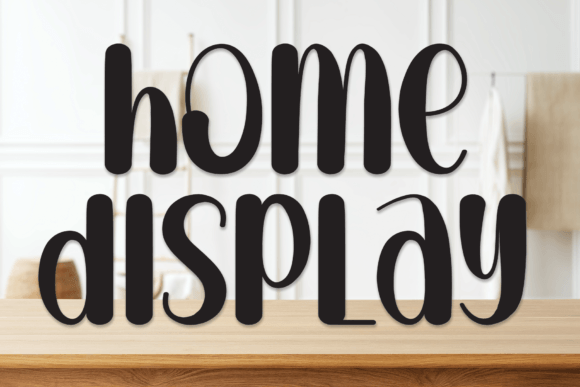
Adding a Personal Touch with the Home Display Font
Have you ever sat down to brainstorm ideas for a special project, only to find that the perfect font is missing? For many designers, this is a familiar experience. But what if you could bring a sense of warmth and personality to your designs with just the right font? Enter the Home Display Font, a cool and friendly handwritten display font that’s sure to make a lasting impression.
Whether you’re crafting wedding invitations, creating custom cards, or designing any other project that needs a fun touch, the Home Display Font is the perfect solution. Its creative and versatile design makes it an invaluable asset for any designer looking to add a personal touch to their work.
Key Features of Home Display Font
- Unique Characteristics: Home Display Font features a distinctive, modern design with a focus on readability and legibility, making it ideal for digital displays and signage.
- Character Set: The font includes a comprehensive character set, including Latin, Cyrillic, and Greek alphabets, as well as punctuation and symbols.
- Kerning and Ligatures: Home Display Font includes advanced kerning and ligature features, ensuring smooth and natural-looking text rendering.
- Scalability: The font is designed to be highly scalable, making it suitable for use in a wide range of applications, from small mobile devices to large digital billboards.
Review of Home Display Font
Overall, I think Home Display Font is a great addition to any UI designer’s toolkit. ✨ Its modern and sleek design makes it perfect for creating visually appealing interfaces. I particularly love how it handles headings and titles – it’s clean, crisp, and always grabs the user’s attention.
One of the standout features of Home Display Font is its excellent readability across various screen sizes. ✨ It’s clear and legible even at small font sizes, making it ideal for use in mobile applications and websites. Additionally, the font’s versatility allows it to be used in a wide range of design contexts, from logos to body text.
While Home Display Font is a great font, it’s not without its limitations. ⚠️ One of the main issues I’ve encountered is its lack of support for certain languages. If you’re working on a project that requires a font with comprehensive language support, you may need to look elsewhere.
Despite its limitations, I think Home Display Font is a solid choice for designers looking for a modern and stylish font. Its clean design and excellent readability make it a great addition to any UI designer’s toolkit. With a little planning and consideration of language support, I have no hesitation in recommending Home Display Font to my fellow designers.
- Modern and sleek design
- Excellent readability across various screen sizes
- Perfect for use in logos, headings, and body text
- Supports a wide range of design contexts
- Lacks comprehensive language support
Tips for Getting the Most Out of Home Display Font
Use Home Display Font for headings and titles to create a clean and modern look.
Combine Home Display Font with other fonts to create a unique and visually appealing design.
Experiment with different font sizes and styles to add depth and interest to your design.
Use Home Display Font for:
- Social media posts and graphics
- Blog posts and articles
Is Home Display Font compatible with accessibility standards?
Yes, Home Display Font meets the accessibility standards for readability and legibility. The font is designed to be highly legible on various devices and screen resolutions, making it an excellent choice for accessible design. Additionally, the font is available in OpenType format, which supports advanced typography features such as ligatures, fractions, and small caps.